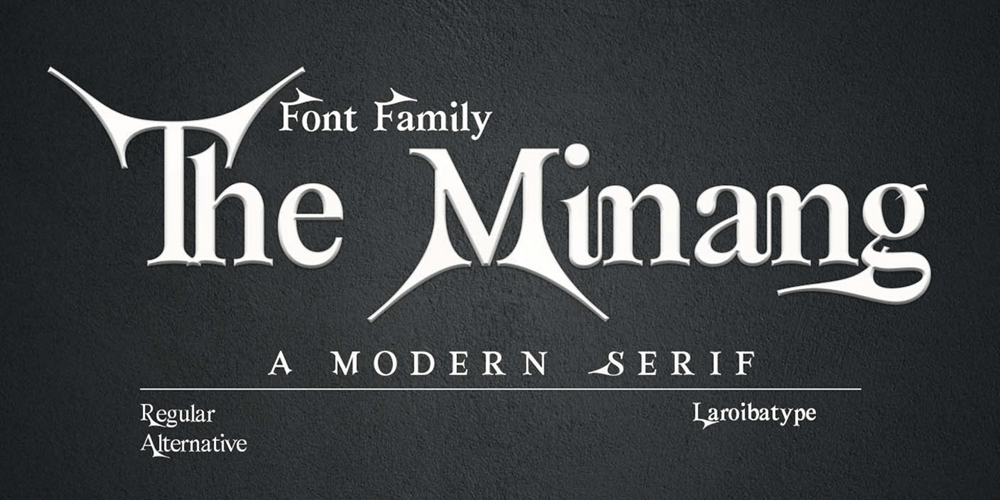
The Minang Font Family was designed by Habib Abdur Rofi and published by Laroyba Type. The Minang contains 13 styles and family package options. The Minang font is a modern representation of the rich cultural heritage of Minangkabau, one of the regions in Indonesia known for its historical legacy and natural beauty. Blending classic serif elements with contemporary touches, this font combines traditional elegance with a fresh and relevant impression.Each letter is meticulously designed to reflect the beauty of Minangkabau’s architecture and traditional art motifs. Its soft lines and balanced proportions create an elegant yet easily readable impression. With unique and consistent characteristics, this font is suitable for various design purposes, from magazine headlines to small text in history books.Overall, The Minang font is a harmonious blend of traditional beauty and modern aesthetics, presenting a font that not only captivates but also enriches the visual experience in every design work.